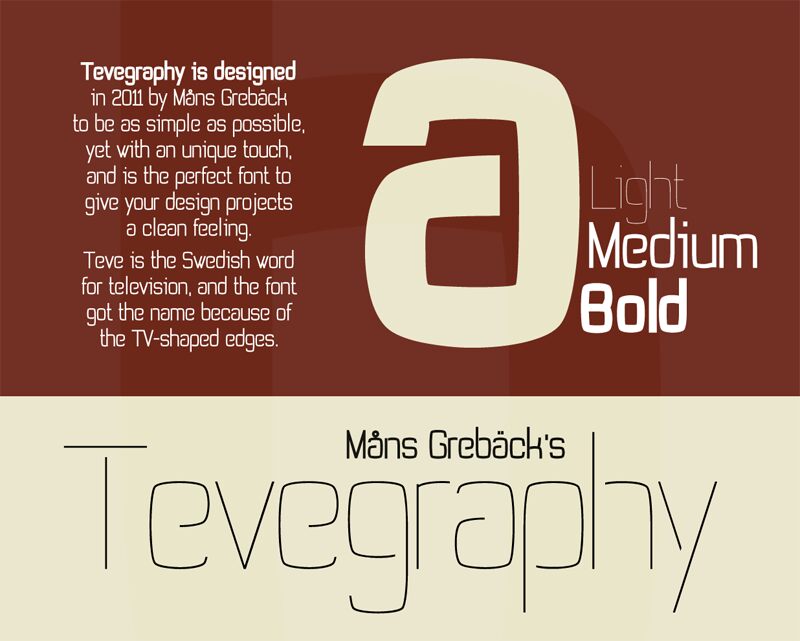
Tevegraphy Light by Måns Grebäck is a free ultra-light sans serif with towering, narrow letters, nearly monoline strokes, and broad rounded forms that remain open and airy despite their extreme thinness. Open joins and clipped curves keep the spare drawing distinctive.
Contemporary minimalism is its clearest setting, and the tall proportions suit fashion editorials, luxury cosmetics packaging, gallery posters, refined album artwork, and arts event programs. The elongated outlines can echo architectural photography, fine-line illustration, or slender product silhouettes, letting the lettering become part of the imagery instead of reading as a detached label.